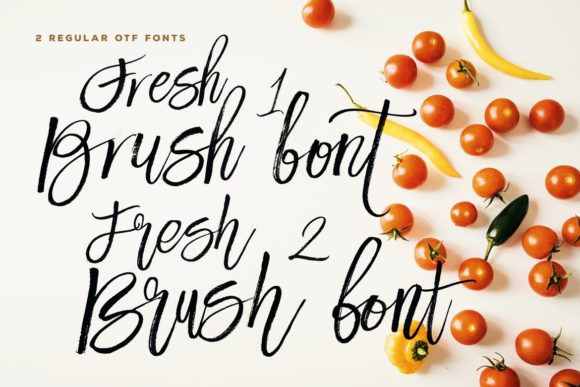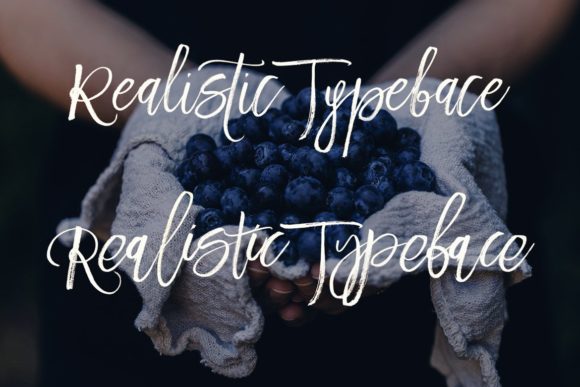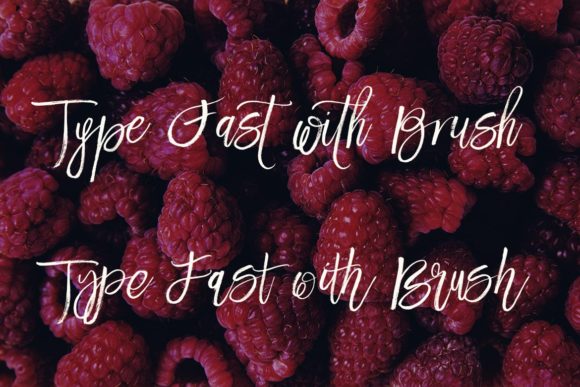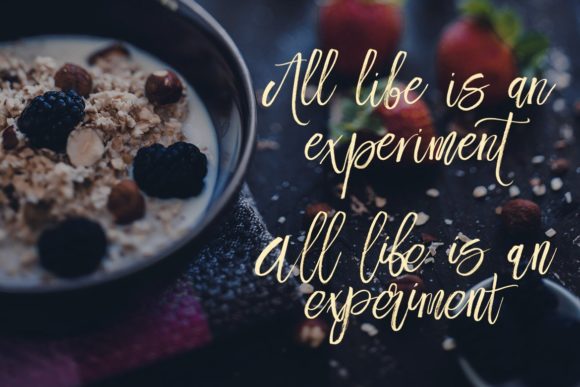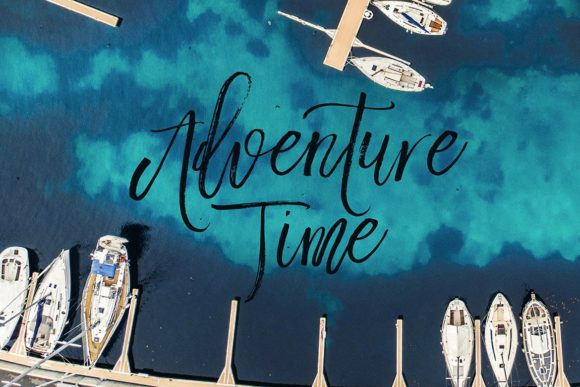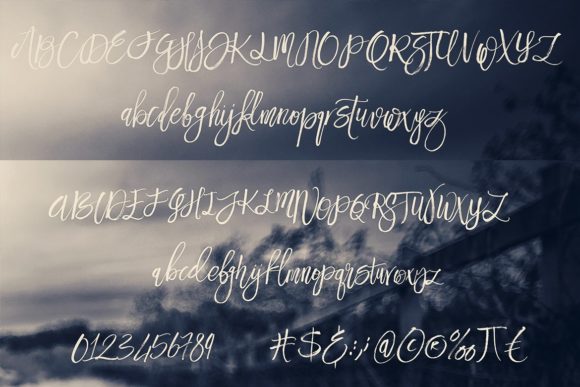
Introducing Fresh Font: The Ultimate Handwritten Font for Your Creative Projects
Are you tired of using the same old fonts in your designs? Look no further! Fresh Font is an incredibly cool and bold handwritten font that is sure to take your creative projects to the next level. With its natural feel and organic look, Fresh Font is the perfect choice for designers and crafters who want to add a touch of personality to their work.
The Unique Features of Fresh Font
So, what makes Fresh Font so special? For starters, its handwritten style gives it a unique and personal touch that is hard to find in digital fonts. The bold and cool design of Fresh Font makes it perfect for headlines, titles, and other applications where you want to make a statement. Additionally, the natural feel of the font makes it easy to read and understand, even in large blocks of text.
The Benefits of Using Fresh Font
There are many benefits to using Fresh Font in your designs. Here are just a few:
- Stand out from the crowd: With its bold and unique design, Fresh Font is sure to make your designs stand out from the crowd.
- Add a personal touch: The handwritten style of Fresh Font gives it a personal touch that is hard to find in digital fonts.
- Easy to read: Despite its bold design, Fresh Font is easy to read and understand, even in large blocks of text.
- Versatile: Fresh Font can be used in a wide range of applications, from headlines and titles to body text and more.
Who is Fresh Font for?
Fresh Font is perfect for designers and crafters who want to add a touch of personality to their work. Here are just a few examples of who might benefit from using Fresh Font:
- Graphic designers: Fresh Font is perfect for graphic designers who want to create bold and eye-catching designs.
- Crafters: Fresh Font is great for crafters who want to add a personal touch to their handmade projects.
- Bloggers and writers: Fresh Font can be used to add a touch of personality to blog posts and articles.
- Small business owners: Fresh Font can be used to create bold and eye-catching marketing materials, such as brochures and flyers.
How to Use Fresh Font
Using Fresh Font is easy! Here are just a few tips to get you started:
- Use it as a headline font: Fresh Font is perfect for headlines and titles, where you want to make a bold statement.
- Mix it with other fonts: Fresh Font can be paired with other fonts to create a unique and interesting design.
- Experiment with different colors: Fresh Font looks great in a wide range of colors, so don’t be afraid to experiment and find the perfect color for your design.
In conclusion, Fresh Font is an incredibly cool and bold handwritten font that is sure to take your creative projects to the next level. With its natural feel and organic look, Fresh Font is the perfect choice for designers and crafters who want to add a touch of personality to their work. Whether you’re a graphic designer, crafter, blogger, or small business owner, Fresh Font is a great choice for anyone who wants to create bold and eye-catching designs.